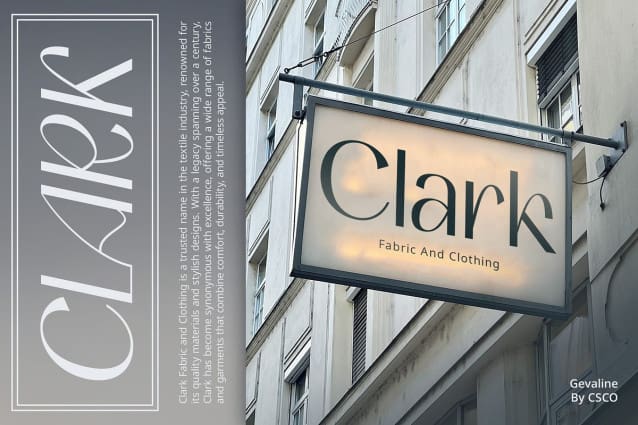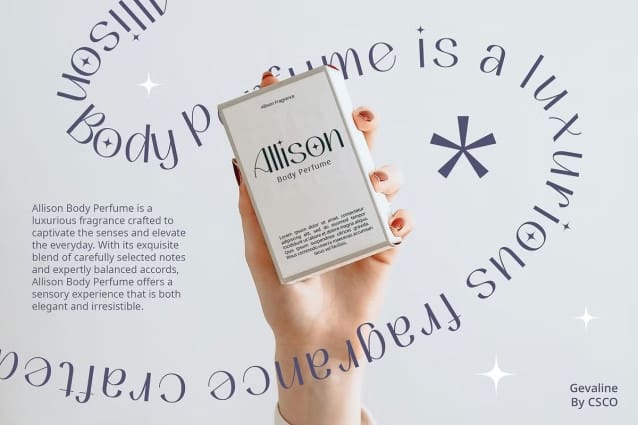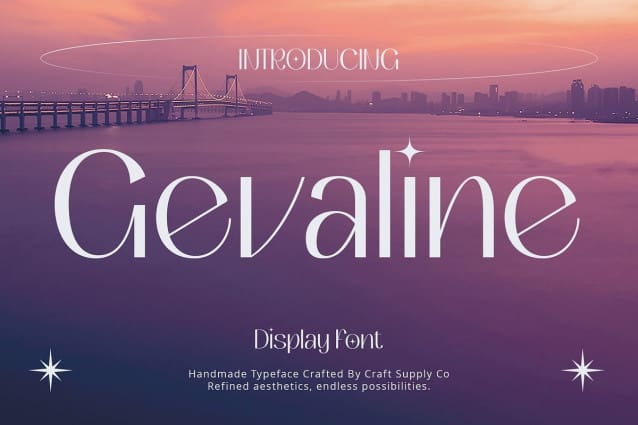
Gevaline Font
Gevaline Font – Aesthetic Font: Where Modernity Meets Femininity. Modern High Contrast Design Gevaline – Aesthetic Font boasts a modern sans serif high contrast design, creating visual interest and striking elegance. It merges modernity with feminine strokes, embodying minimalist beauty with each character.
Minimalist Beauty With its clean lines and subtle curves, Gevaline Font radiates minimalist beauty, adding sophistication to any design project. Infused with feminine strokes, it exudes a refined elegance perfect for contemporary applications.
Feminine Stroke Gevaline Font – Aesthetic Font features delicate feminine strokes, meticulously crafted to infuse each letter with a sense of grace and charm. Its versatility extends far beyond mere aesthetics, seamlessly transitioning from branding materials to editorial design, effortlessly enhancing visual appeal and ensuring consistency across diverse design projects. Whether adorning a sleek logo or gracing the pages of a magazine spread, Gevaline captivates viewers with its understated elegance, leaving a lasting impression on every observer.
Captivating Elegance This Aesthetic Font captivates with its elegant charm, leaving a lasting impression on viewers. Whether used in logos or web design, it elevates your creations with captivating elegance and timeless beauty.